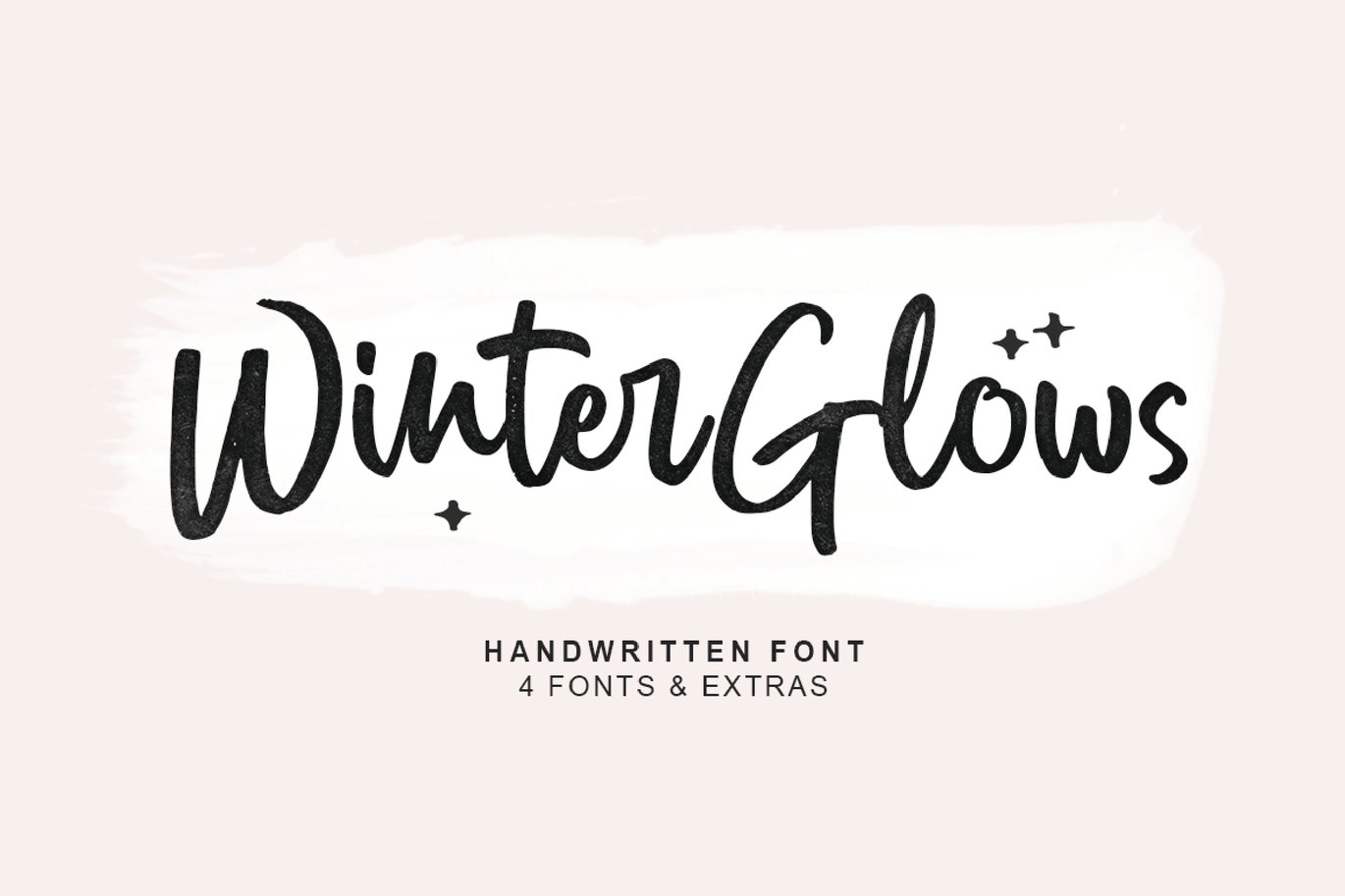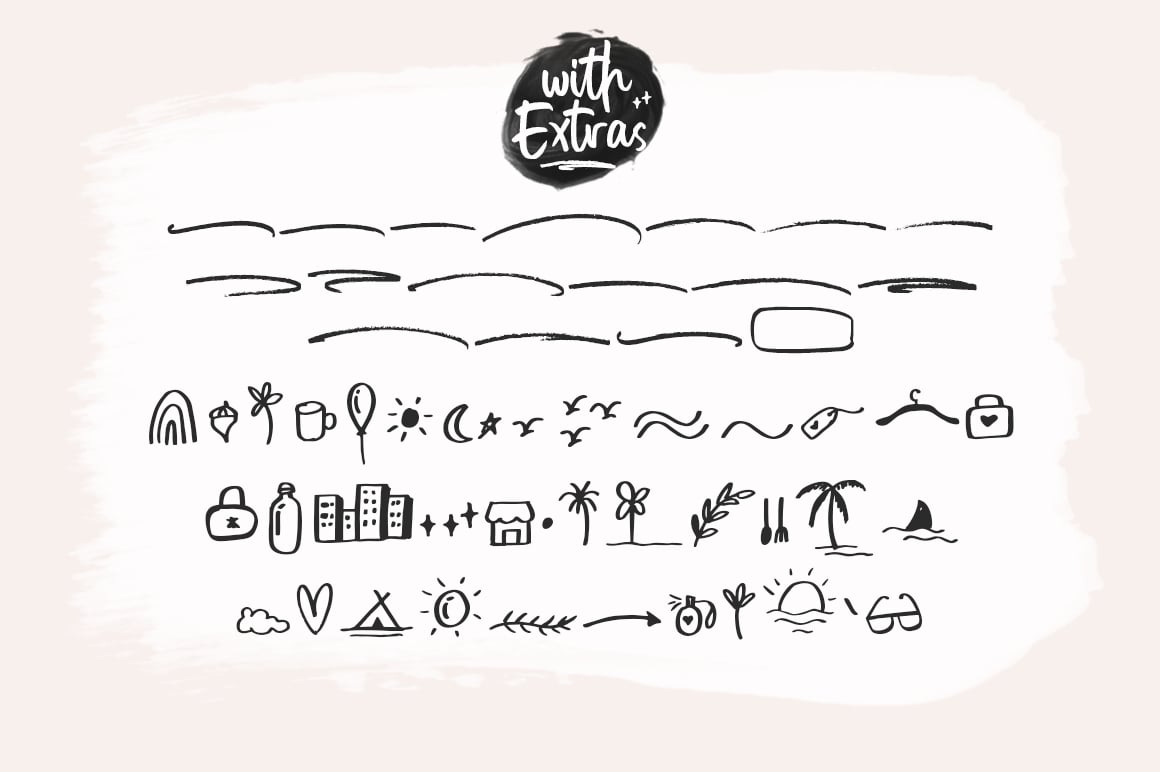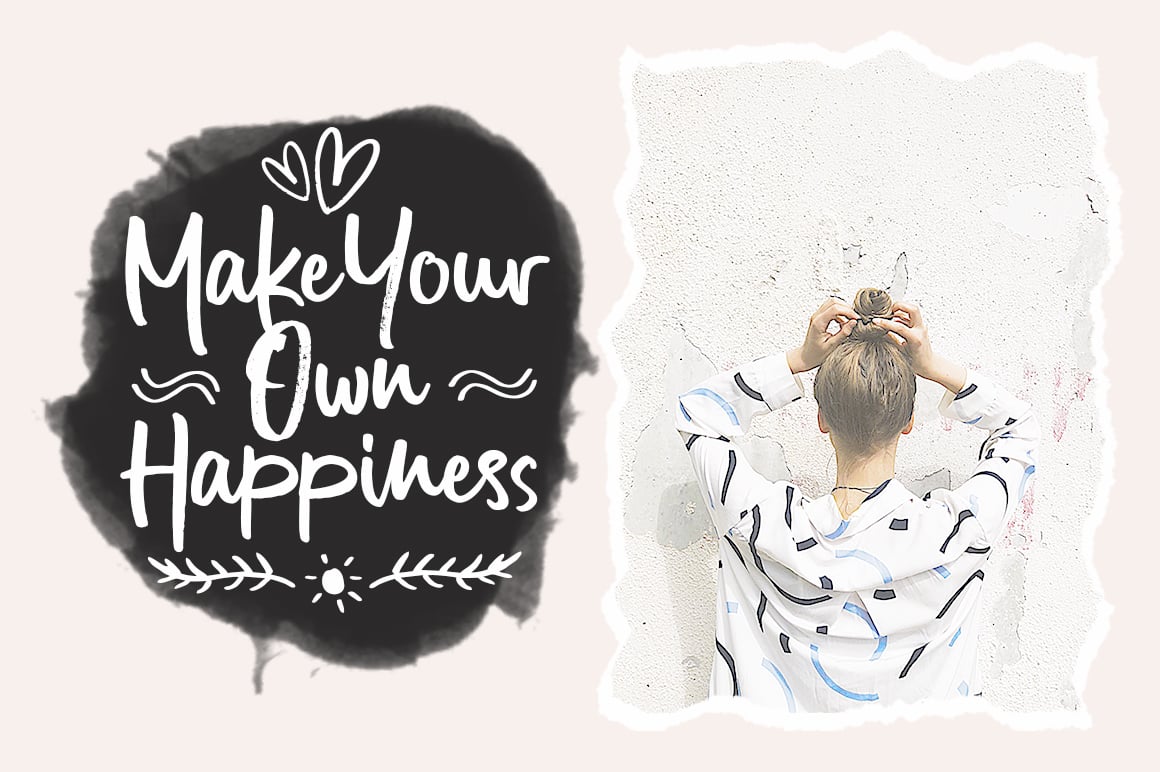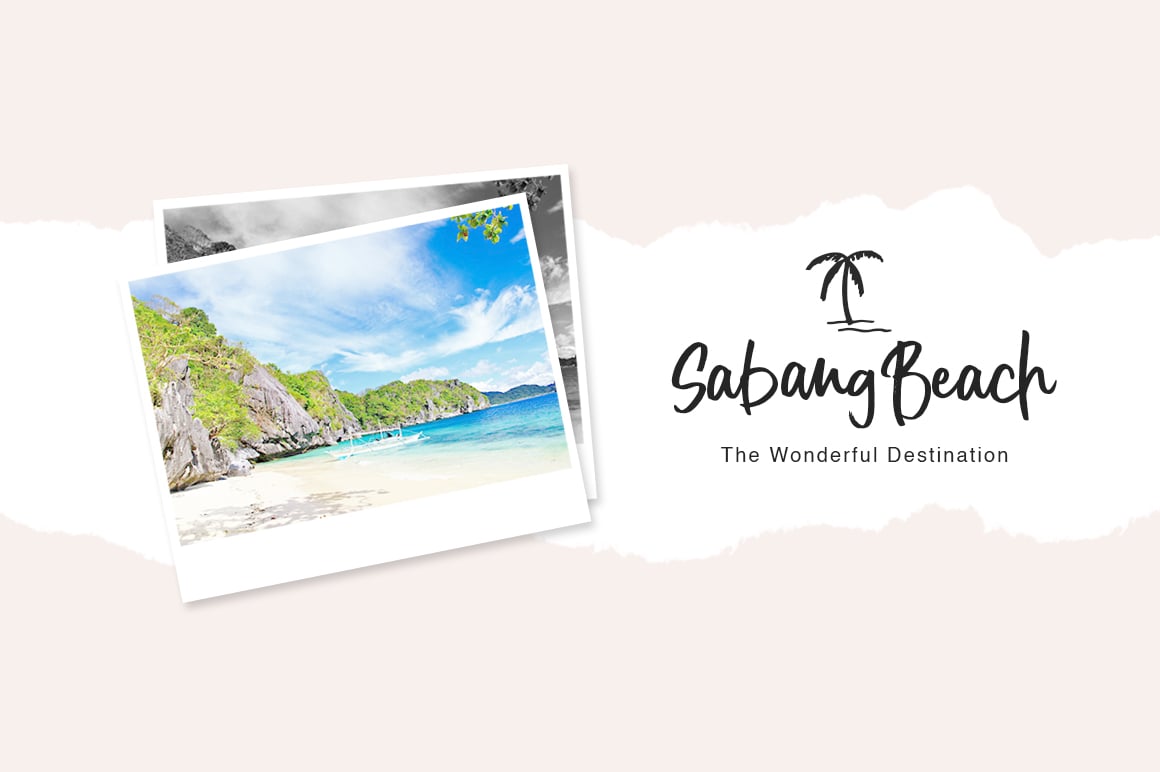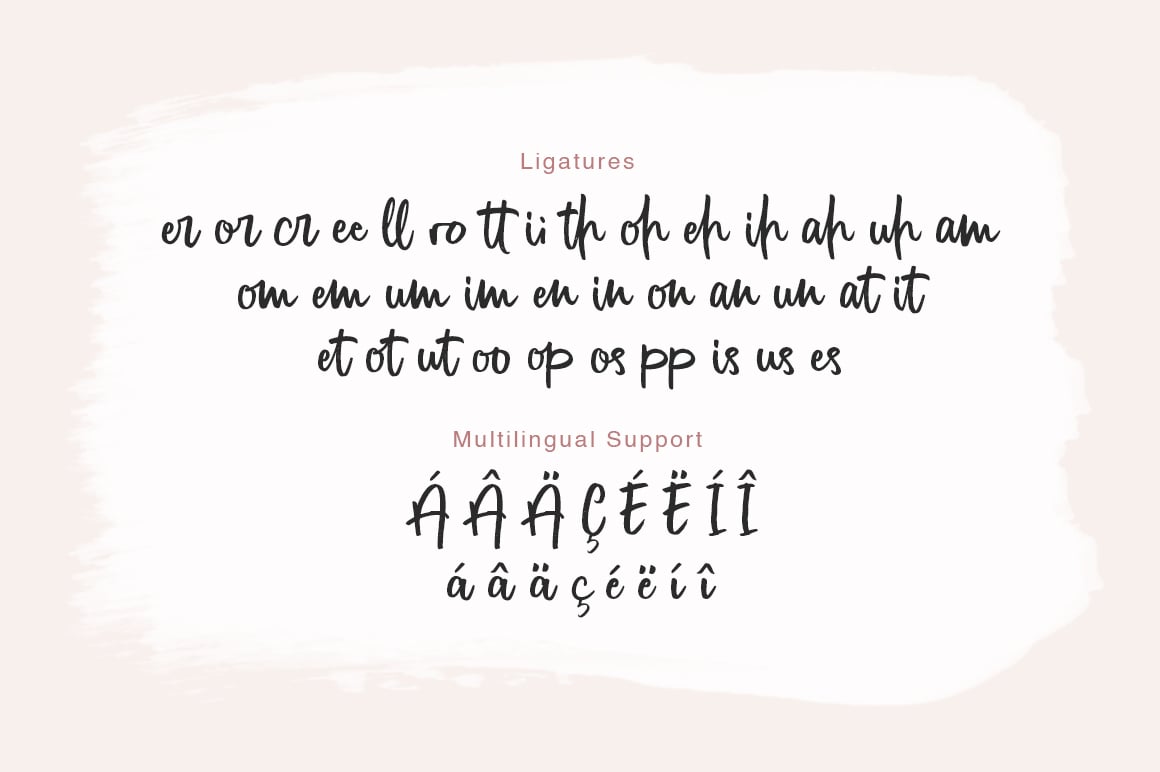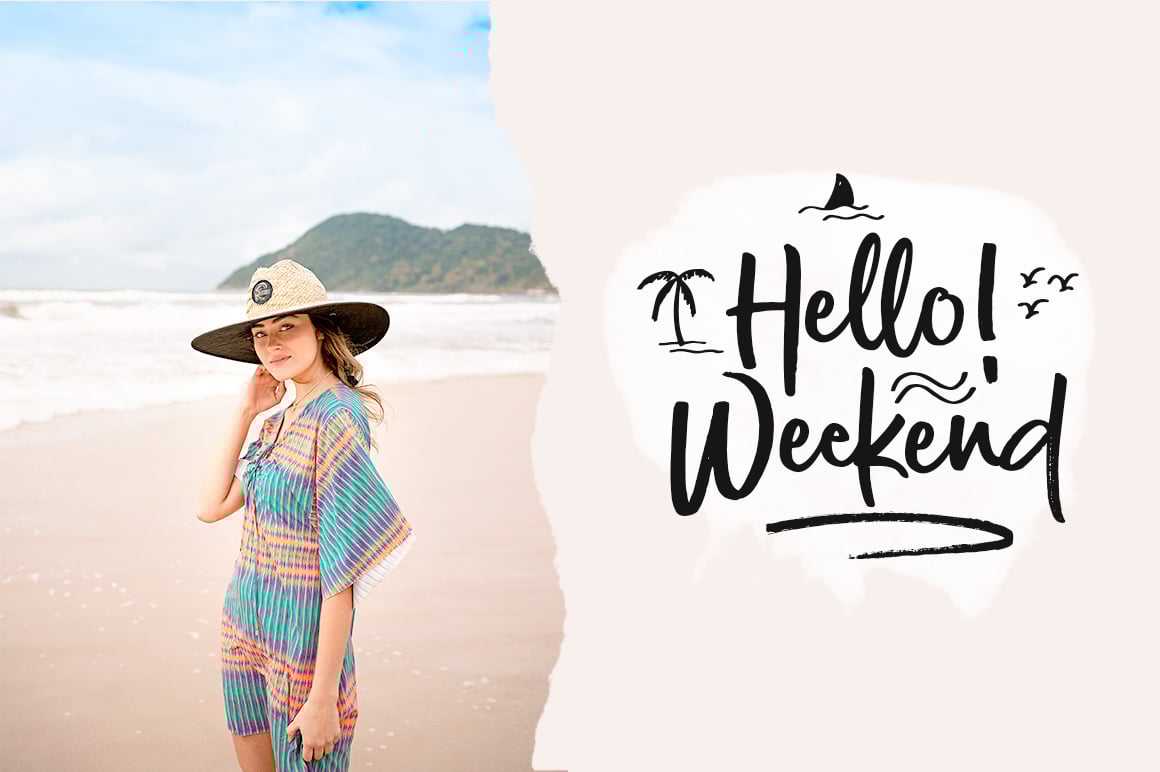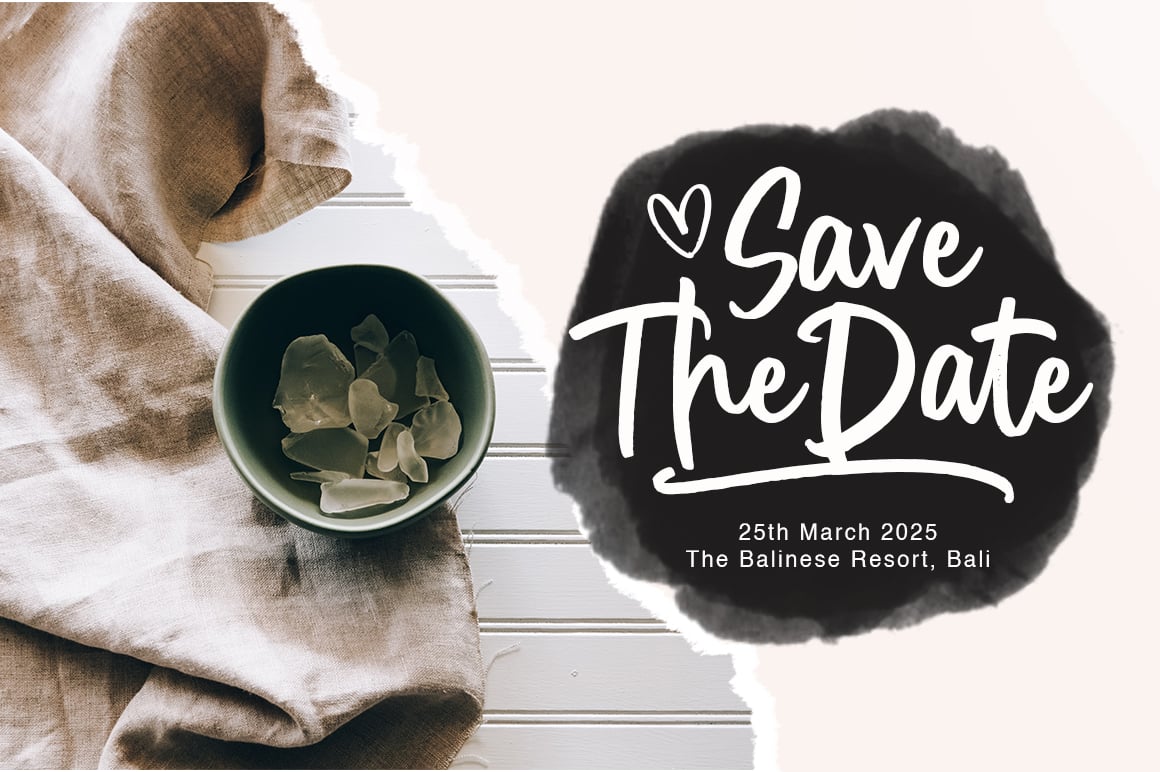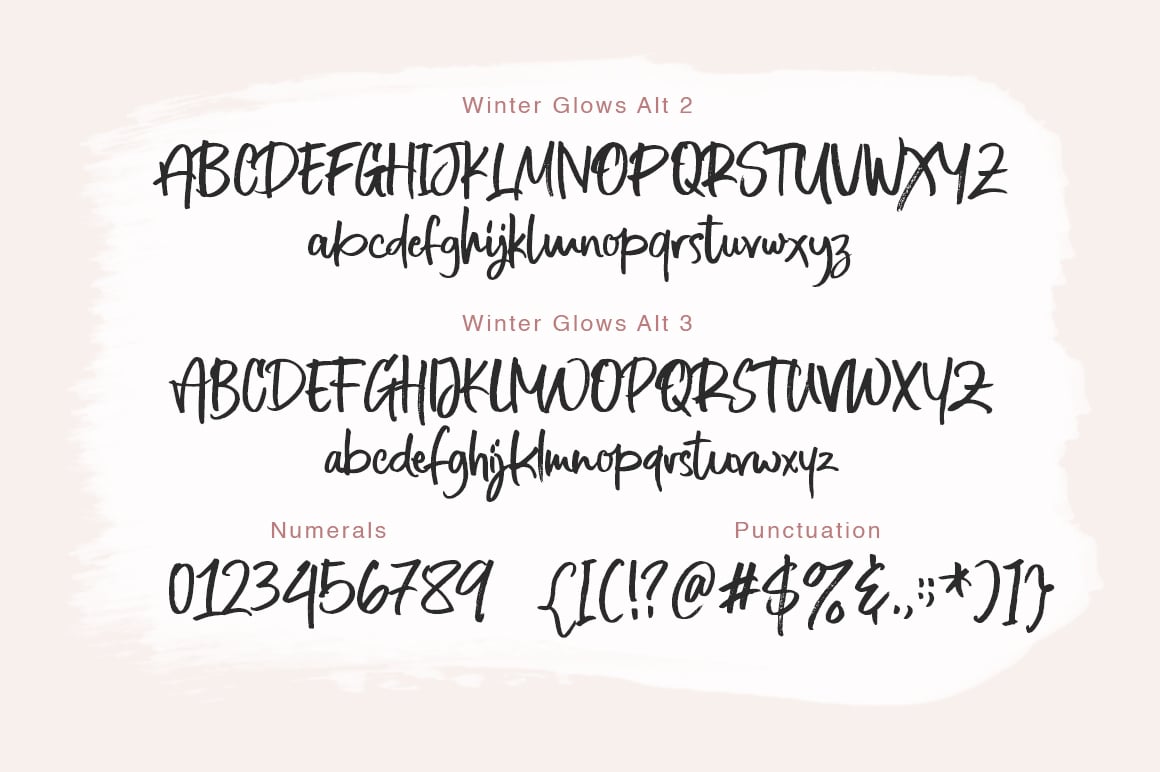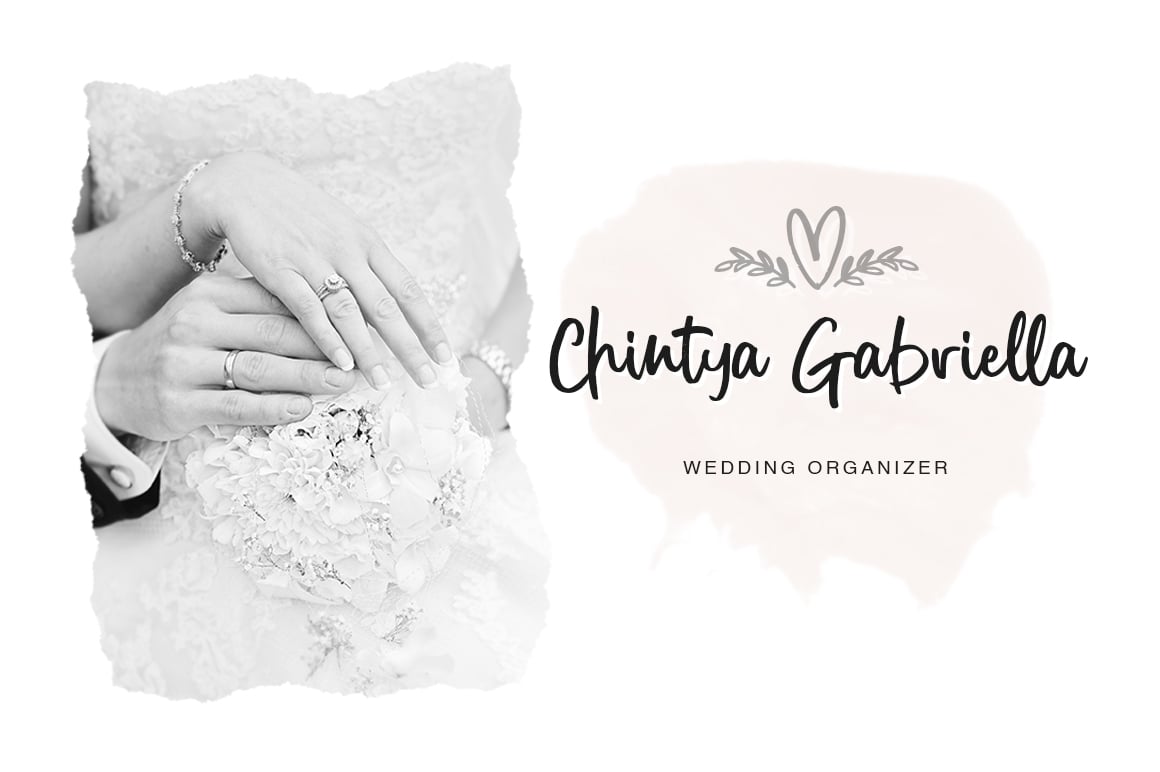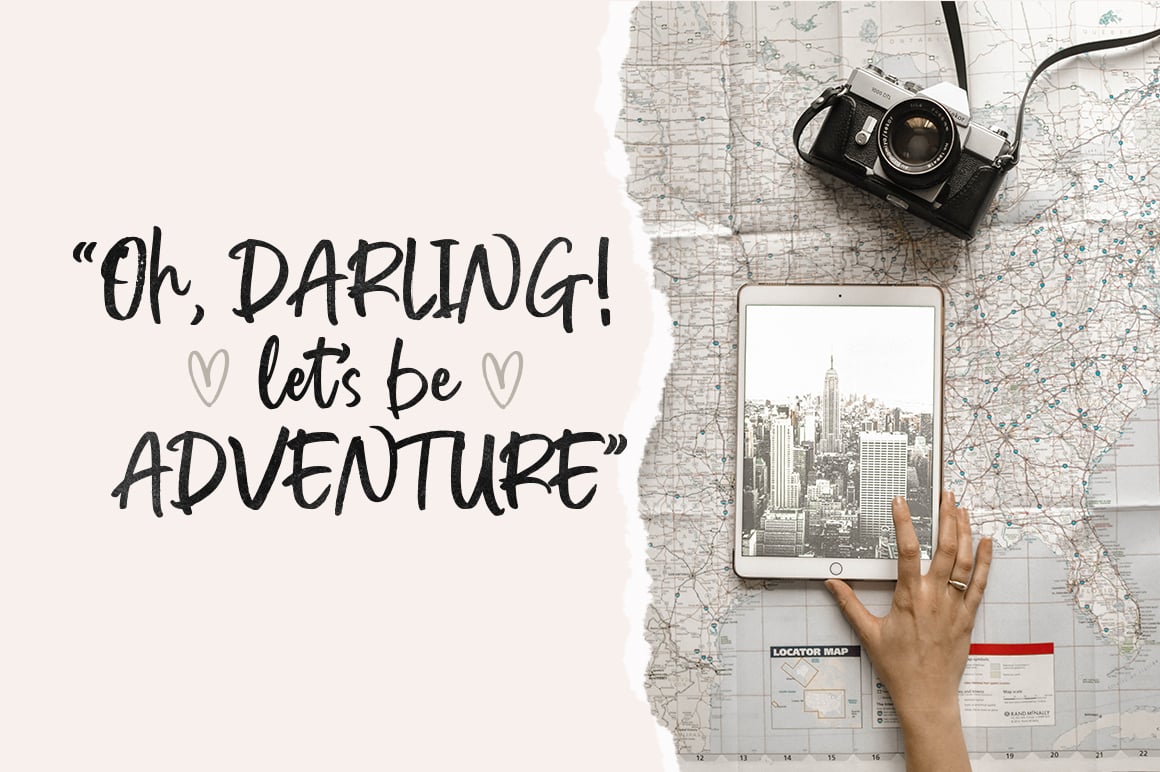
Winter Glows Brush Font
A fabulously fun yet elegant script font with tons of energy, allowing you to create beautiful hand-made typography in an instant. With extra bouncy curves & loops, Winter Glows is guaranteed to make your text stand out – perfect for logos, printed quotes, invitations, cards, product packaging, headers and whatever your imagination holds.
What’s really awesome is that Winter Glows comes with a complete set of lowercase alternates, which allows you to create even more authentic custom-feel text. Another great feature is the bonus ornaments font, which allows you to add some really unique and elegant finishing touches to your script text.
1. Winter Glows • A handwritten script font containing upper & lowercase characters, numerals and a large range of punctuation.
2. Winter Glows Alt 1 • This is a second version Winter Glows, with a completely new set of both lower and uppercase characters. If you wanted to avoid letters looking the same each time to recreate a custom-made style, or try a different word shape, simply switch to this font for an additional layout option.
3. Winter Glows Alt 2 • This is a second version Winter Glows, with a completely new set of both lower and uppercase characters. If you wanted to avoid letters looking the same each time to recreate a custom-made style, or try a different word shape, simply switch to this font for an additional layout option.
4. Winter Glows Alt 3 • This is a second version Winter Glows, with a completely new set of both lower and uppercase characters. If you wanted to avoid letters looking the same each time to recreate a custom-made style, or try a different word shape, simply switch to this font for an additional layout option.
5. Winter Glows Extras • A set of 20 hand-drawn swashes & doodles, the perfect finishing touch to underline your Winter Glows text & doodles for perfect lettering logos. Simply install this as a separate font, select it from your font menu and type any A-Z, a-z & 0-9 character to create a swash & Doodles.
Standard Ligatures • Are also available for several lowercase characters (double-letters which flow more naturally). Ligatures will automatically replace the standard letter pairs whenever available, when using any OpenType capable software.